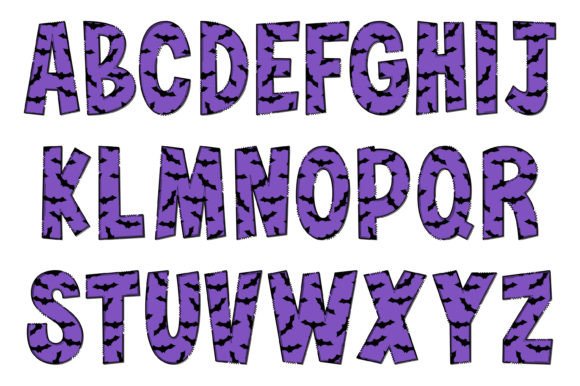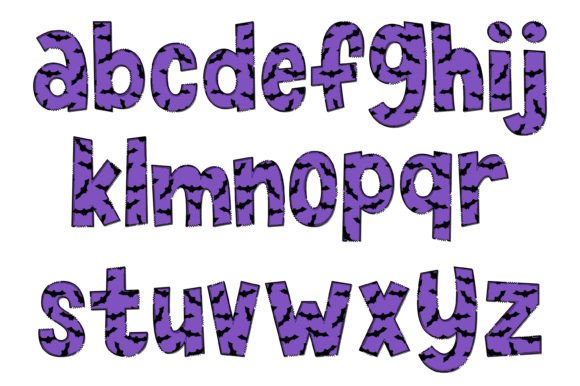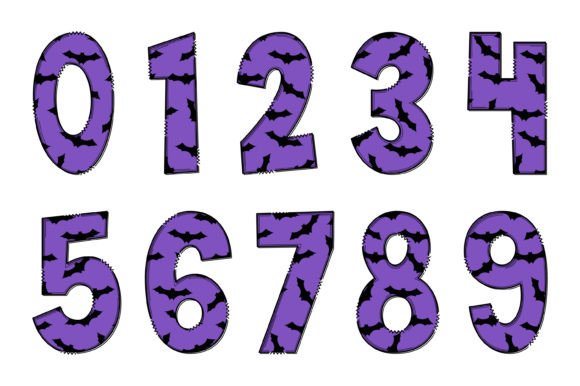
Flying Bat Font – Free Download
Introduction to Flying Bat Font
Flying Bat is a delightful color font that brings a sense of whimsy and adventure to your designs.
Perfect for Halloween-themed projects, party invitations, or anything that needs a touch of playful charm Let your creativity take flight with Flying Bat.
Key Features of Flying Bat Font
Why Choose Flying Bat Font?